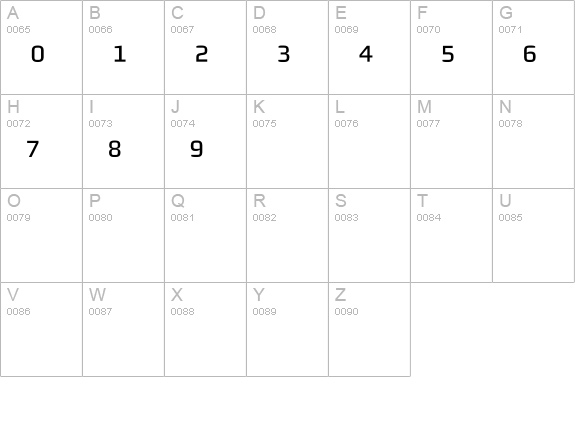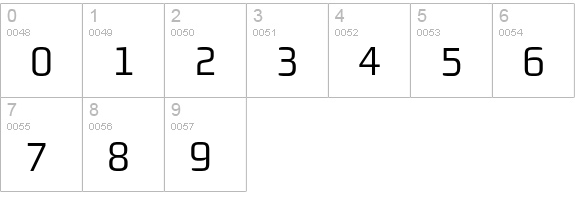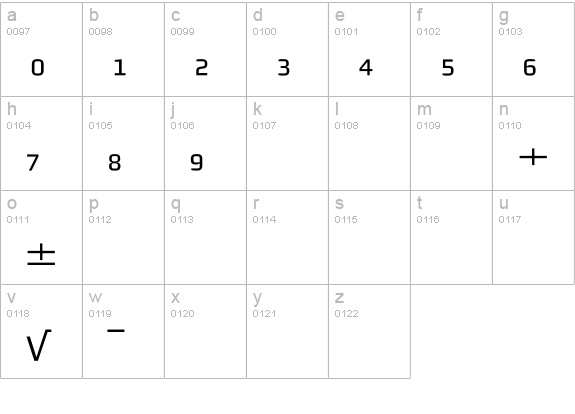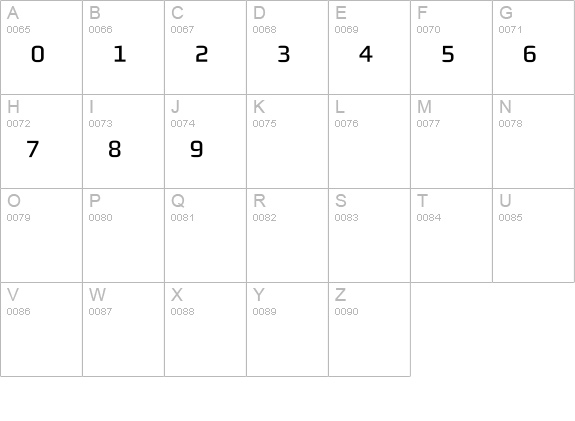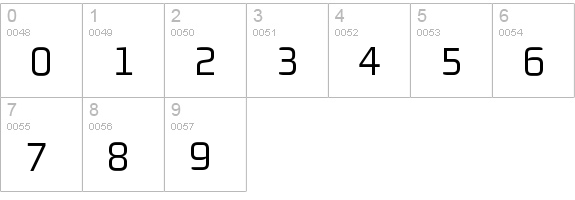
MorganSnFigures Font Details
Introducing MorganSnFigures font, a sophisticated and versatile typeface perfect for a wide range of design projects. This elegant font features beautifully crafted characters with a contemporary flair, making it ideal for branding, editorial design, and more. MorganSnFigures font comes in a variety of styles, from regular to bold, allowing you to create captivating typography that stands out. The clean lines and unique details of this font make it a must-have addition to any designer's toolkit. Best of all, MorganSnFigures font is available for free download exclusively at FontsMarket.com. Whether you're a seasoned professional or just starting out, this font is sure to elevate your designs and leave a lasting impression. Download MorganSnFigures font today and unleash your creativity!